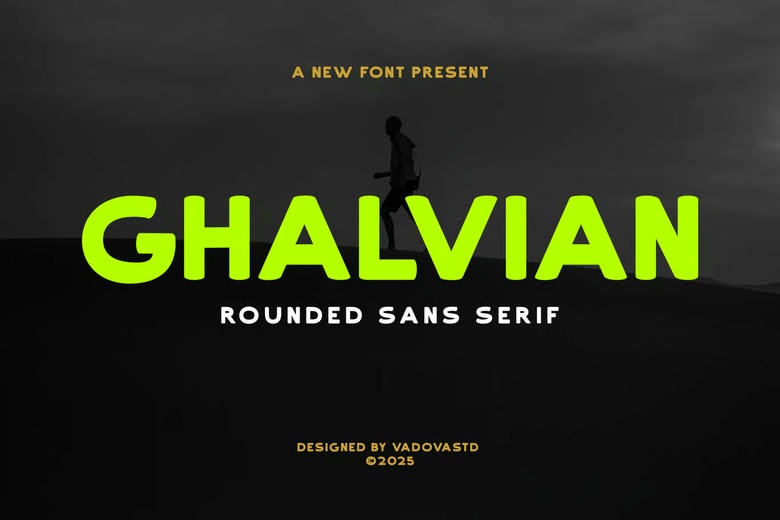
Ghalvian Font
Ghalvian Rounded Sans Serif is a modern rounded sans serif typeface that is both athletic and friendly. It is a high-impact design with energy, alluring confidence, and movement emanating in it, hence suitable in sports branding, active life campaigns, fitness, and urban poster designs. It is easily noticeable and read due to the wide position and rhythmic nature that also makes it convenient when the distance is between the reader and the material.
Ghalvian incorporates versatile sharp but playful shapes that can be used to title, quote and even headlines online that require a statement. Use Cases and Relevance Ghalvian is ideal to use in sports font, fitness branding, athletic poster, active typography, urban headline, modern sans serif, gym quote design, motivational typography, running campaign, lifestyle magazine, bold logo font, energized branding, strong visual impact, rounded sans serif, clean bold typeface, uppercase display font, healthy living design, workout banner, sports logo and street font.
Ghalvian Rounded Sans Serif Font